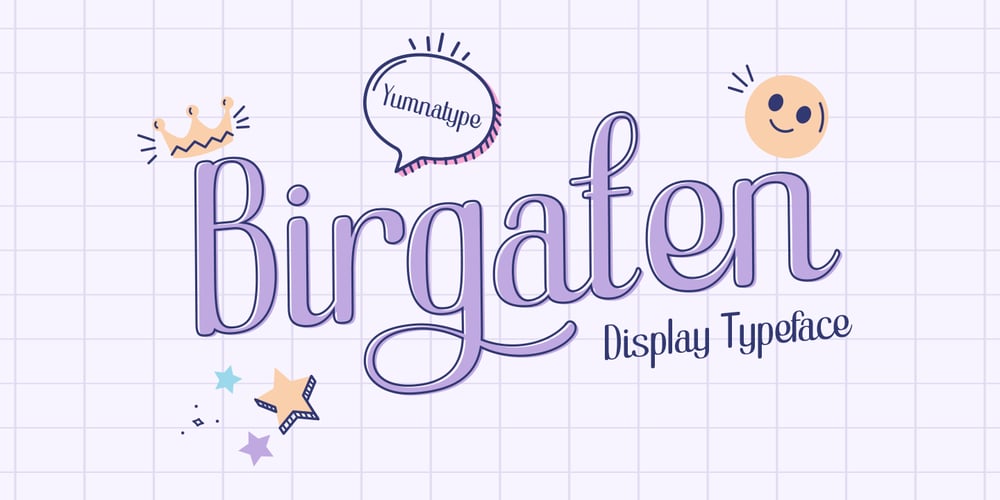
Birgaten
Birgaten font
Birgaten Font Family was designed by Donis Miftahudin and published by Yumna Type. Birgaten contains 1 styles and family package options. Birgaten is a display font that brings a touch of whimsy to your designs. With a slightly playful style, it captures a sense of creativity. The font is made with a not-too-thick weight, ensuring readability while maintaining its unique character. The rounded shapes of the letters add a friendly feel, complemented by low contrast that provides a smooth and consistent look. Distinctively, some letters have swinging ends, adding a delightful motion and personality to the text. In addition, enjoy the features here.Features: Stylistic Sets Multilingual Supports PUA Encoded Numerals and Punctuations Birgaten fits in headlines, logos, posters, flyers, branding materials, print media, editorial layouts, and many more designs. Find out more ways to use this font by taking a look at the font preview.Thanks for purchasing our fonts. Hopefully, you have a great time using our font. Feel free to contact us anytime for further information or when you have trouble with the font. Thanks a lot and happy designing.